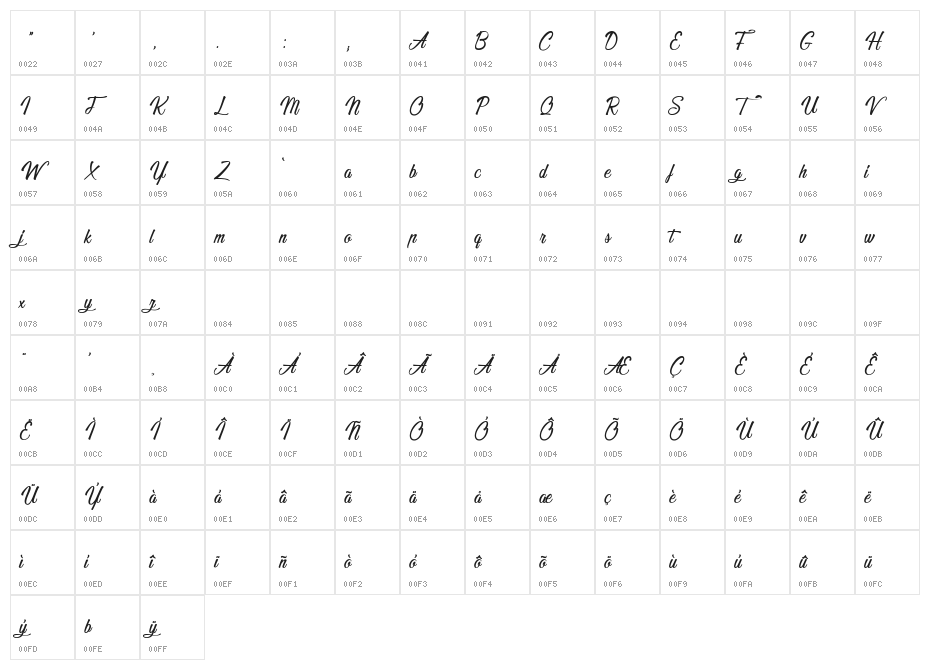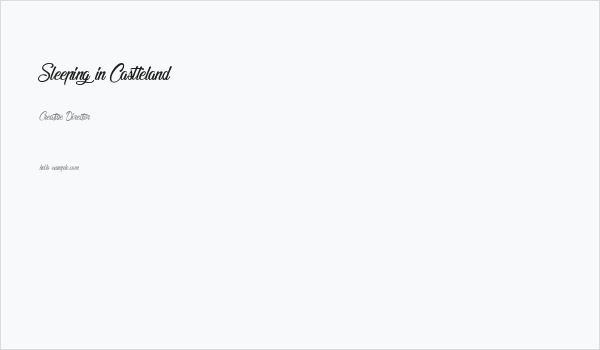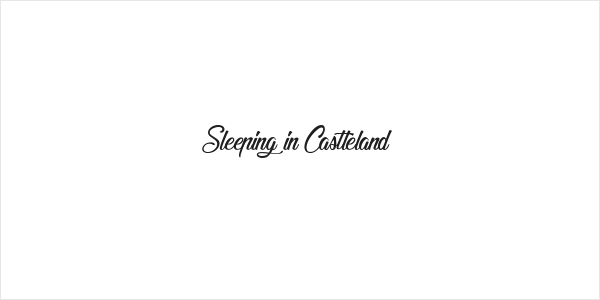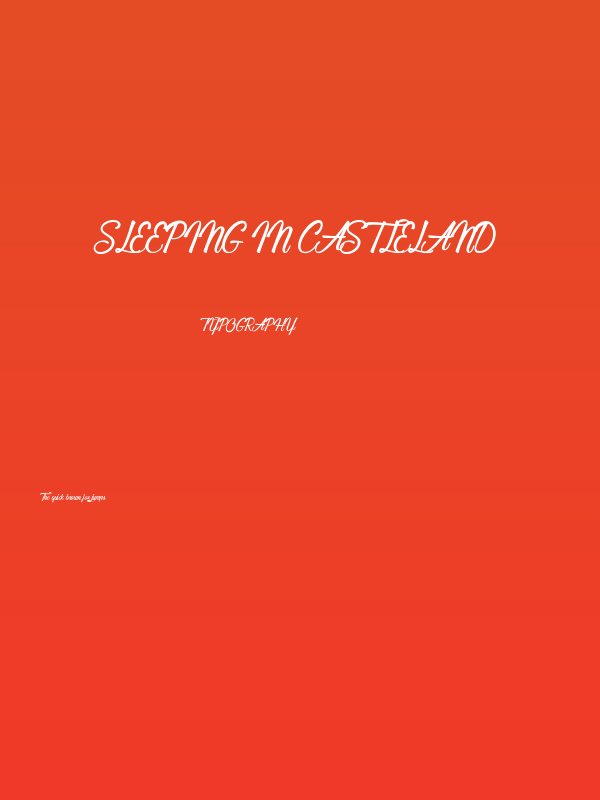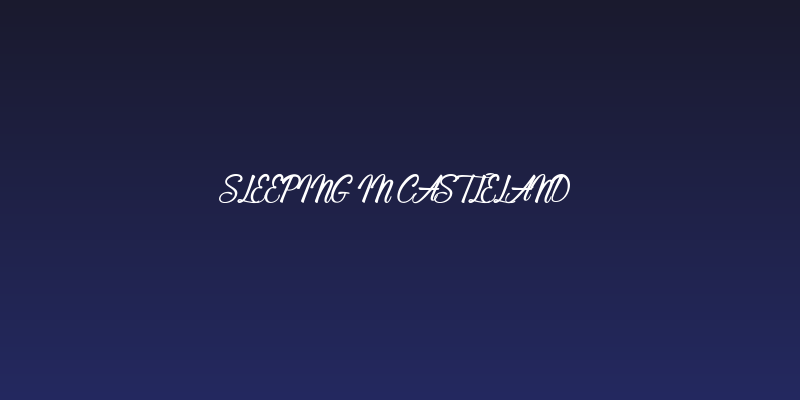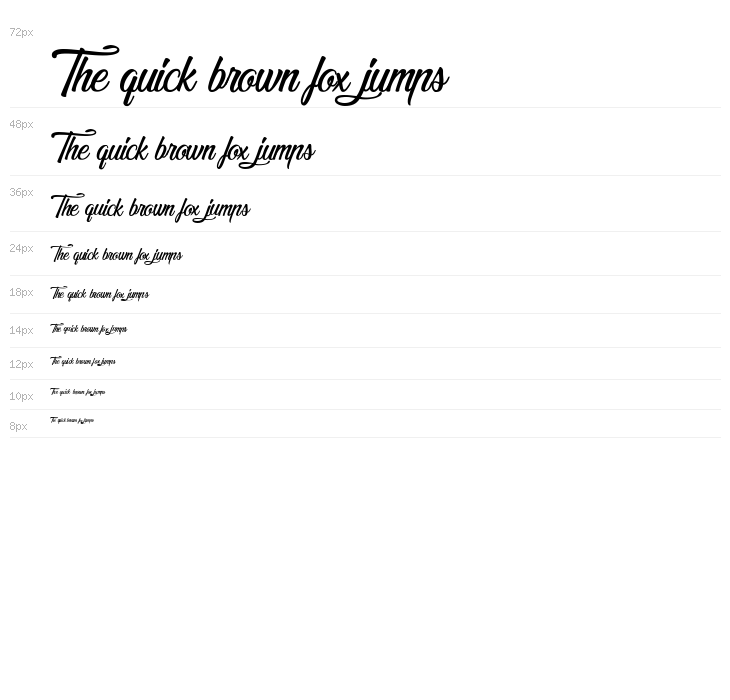
Sleeping in Castleland Font
Sleeping in Castleland Description
This font features an elegant and flowing script style, characterized by its smooth, cursive strokes and a sense of fluidity. The uppercase letters are bold and prominent, with distinctive flourishes that add a touch of sophistication. The lowercase letters maintain a consistent flow, with gentle curves and loops that enhance readability while preserving the decorative nature. The font's overall appearance is both graceful and dynamic, making it suitable for projects that require a touch of elegance and personality. The characters are well-spaced, ensuring clarity and legibility, even in smaller sizes.
Overall StyleElegant
Use CaseHeadlines, Logos, Invitations
Proposed ProjectsIdeal for wedding invitations, elegant branding, greeting cards, and decorative headings.